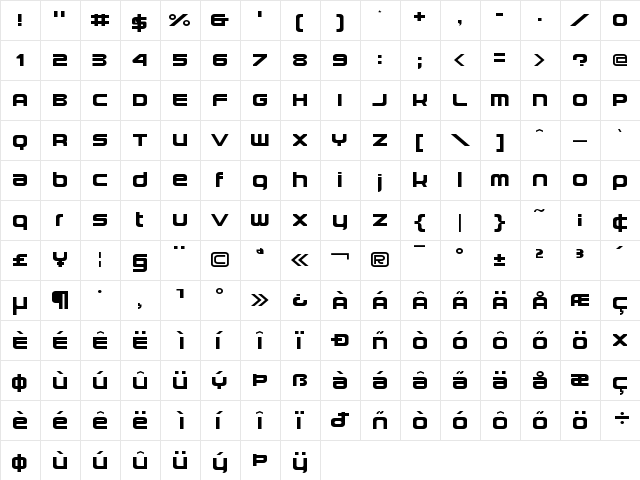
Hemico Regular Font Preview
Hemico Regular
| Designer | Daniel Lyons |
Design Context for Hemico Typeface
Hemico is a composed and adaptable typeface that performs quietly and consistently across a wide range of design contexts.